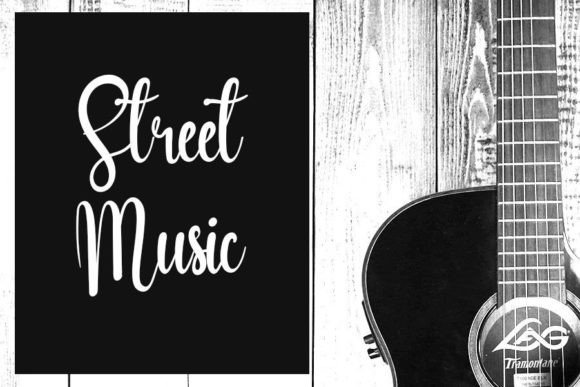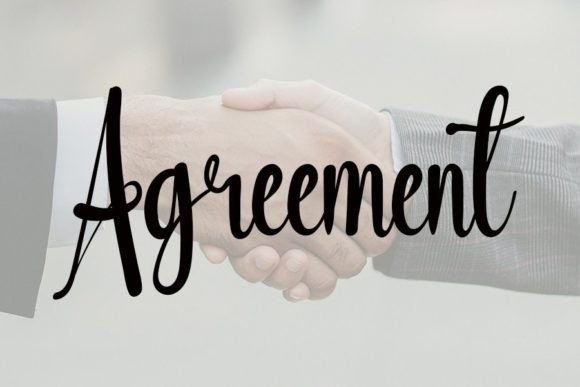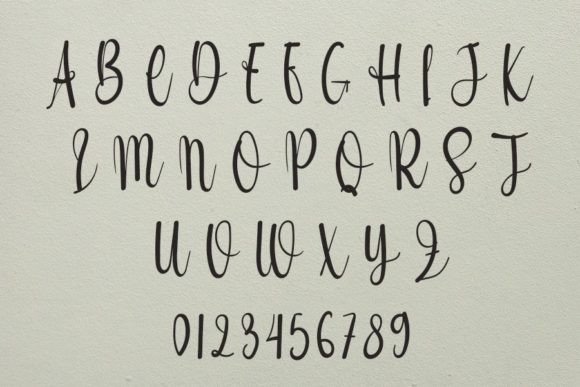
About Sometimes Font
Sometimes is a warm and inviting handwritten font, thoughtfully crafted to become an instant favorite. Balancing its classy calligraphic influences with a contemporary and fresh feel, Sometimes exudes a friendly charm that adds a delightful touch to any project.
The font’s design maintains a sense of timeless elegance with its calligraphic influences, ensuring a touch of sophistication in every character. Simultaneously, it embraces a modern and fresh vibe, making it a versatile choice that seamlessly blends the classic with the contemporary.
Sometimes goes beyond being just a font; it’s a friendly companion for a variety of creative endeavors. Whether used in branding, invitations, or other design projects, it injects a sense of approachability and warmth. The carefully designed characters contribute to a harmonious flow, creating an overall visual appeal that resonates with diverse audiences.
One notable feature of Sometimes is its PUA encoding, providing effortless access to a myriad of amazing glyphs and ligatures. This encoding ensures a smooth exploration of the font’s rich design elements, offering designers the freedom to enhance their work with unique and customized touches. With Sometimes, creativity knows no bounds.
In summary, Sometimes is a typeface that strikes the perfect balance between elegance and modernity. Its friendly handwritten style and PUA encoding make it a valuable asset for designers seeking a versatile and approachable font. Elevate your creative projects with the warmth and sophistication of Sometimes, and discover how it effortlessly becomes a true favorite in your design toolkit.